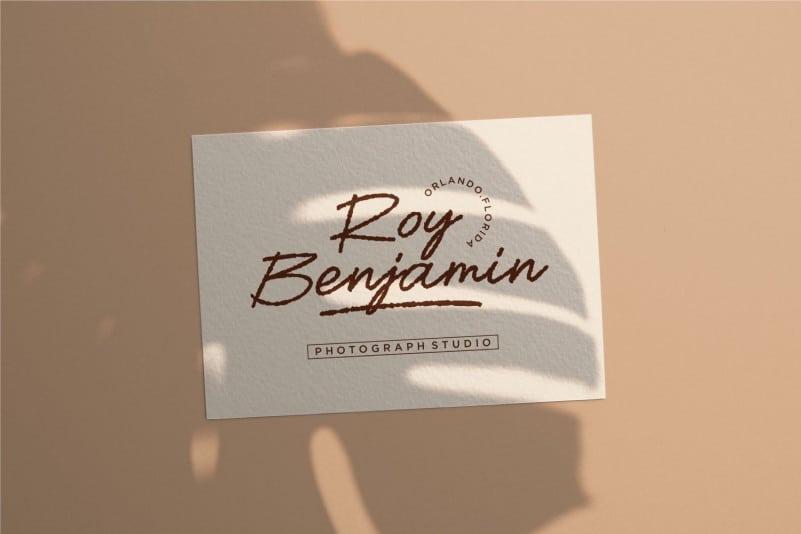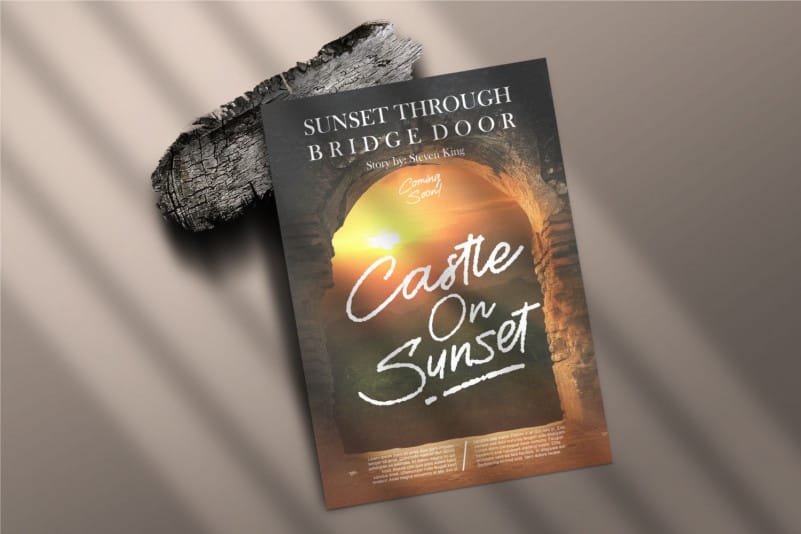
Youth Richfield Script Font
Youth Richfield Script Font is an interesting handwritten font with a unique style. Use this font for any crafting project that requires a personalized look!